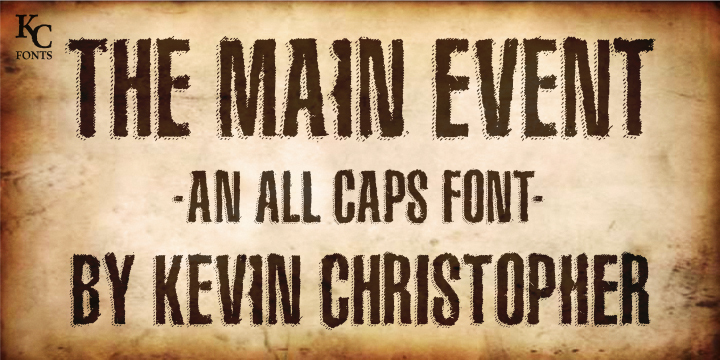
The Main Event by Kevin Christopher is a free eroded display font with tall, tightly packed capitals and a forceful poster silhouette. Rough cuts nibble into the edges, and uneven vertical strokes give the lettering the worn look of ink dragged across coarse paper.
Its narrow proportions and battered texture suit fight-night posters and sports merchandise, but they also bring a convincing hand-printed edge to music packaging and bar signage. There, the letters can become a stamped emblem or weathered sign, not merely neutral type.